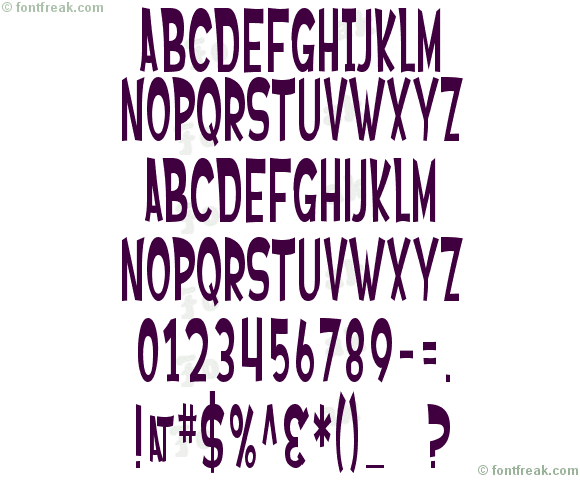
SF Ferretopia Bold
SF Ferretopia Shaded
SF Ferretopia Bold Oblique
SF Ferretopia Oblique
SF Ferretopia Shaded Oblique
SF Ferretopia
Ferretopia, created by Shyfonts Type Foundry, is a distinctive display typeface that captures attention with its bold and shaded oblique style. This font showcases a unique character with a heavy stroke weight and minimal contrast, making it ideal for designs that require a strong visual impact. The spacing is well-balanced, allowing each letter to breathe while maintaining a cohesive look. Ferretopia is adorned with subtle decorative elements that enhance its playful and approachable aesthetic without overwhelming the design.
This versatile font is perfect for a variety of applications. It works exceptionally well for movie posters, where its boldness can convey excitement and drama. Additionally, it can be used in restaurant menus, providing a modern yet inviting touch that draws diners in. Wedding invitations can also benefit from Ferretopia's charm, as it adds a contemporary flair to traditional announcements. For graphic designers and content creators, this font serves as an excellent choice for branding projects, helping businesses stand out with its memorable appearance.
What sets Ferretopia apart is its ability to blend a bold typographic presence with a whimsical feel, making it suitable for both serious and lighthearted themes. With its unique visual style and versatility in application, Ferretopia font free download offers an exciting addition to any designer's toolkit, ensuring your projects will leave a lasting impression.